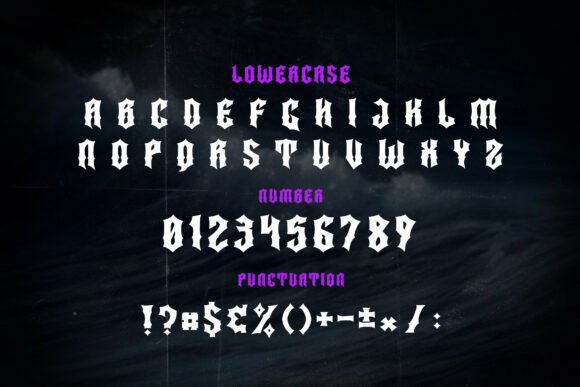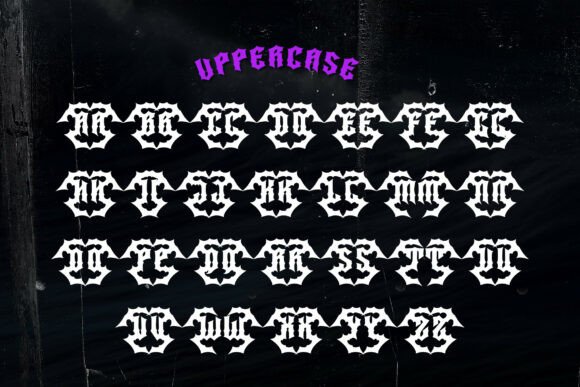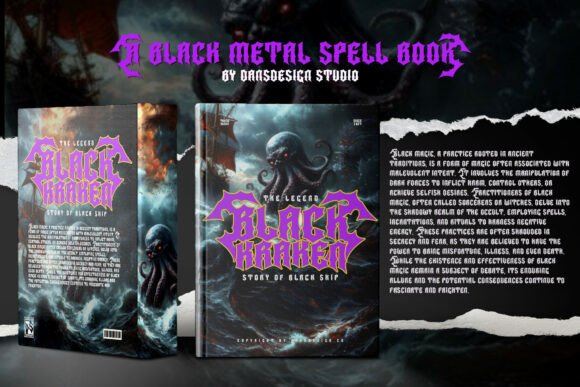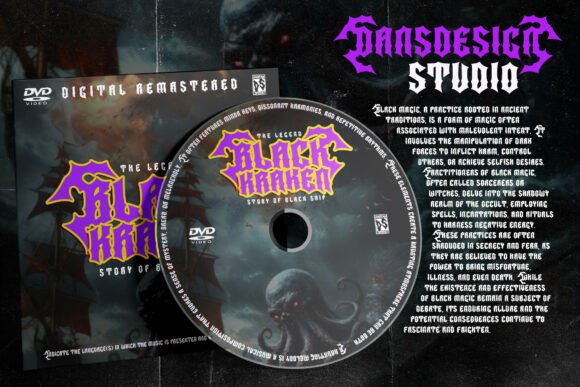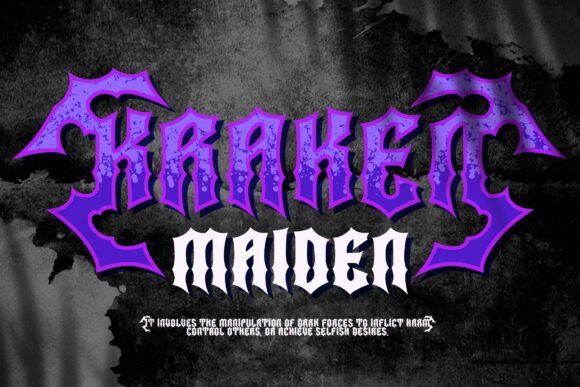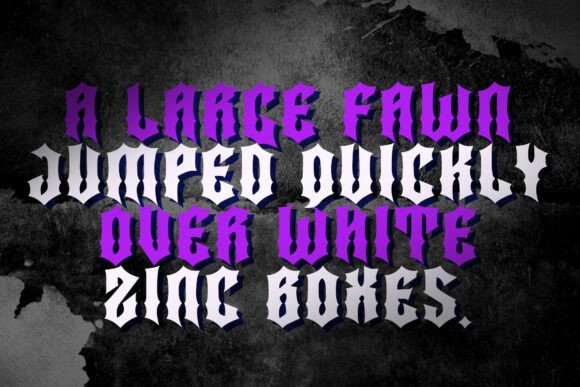
Introduction to Nightshade Font
Nightshade is a bold and thick lettered blackletter font.
Add it confidently to your projects, and you will love the results This font is PUA encoded which means you can access all of the glyphs and swashes with ease.
Key Features of Nightshade Font